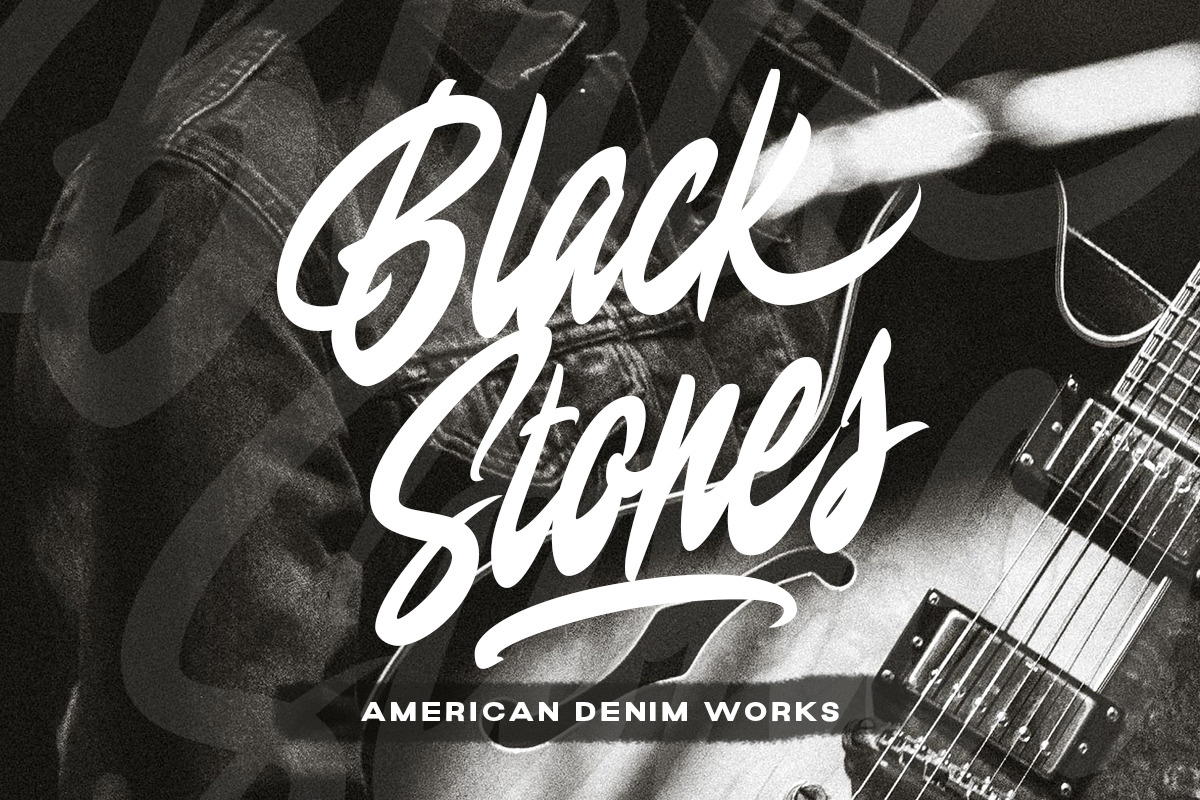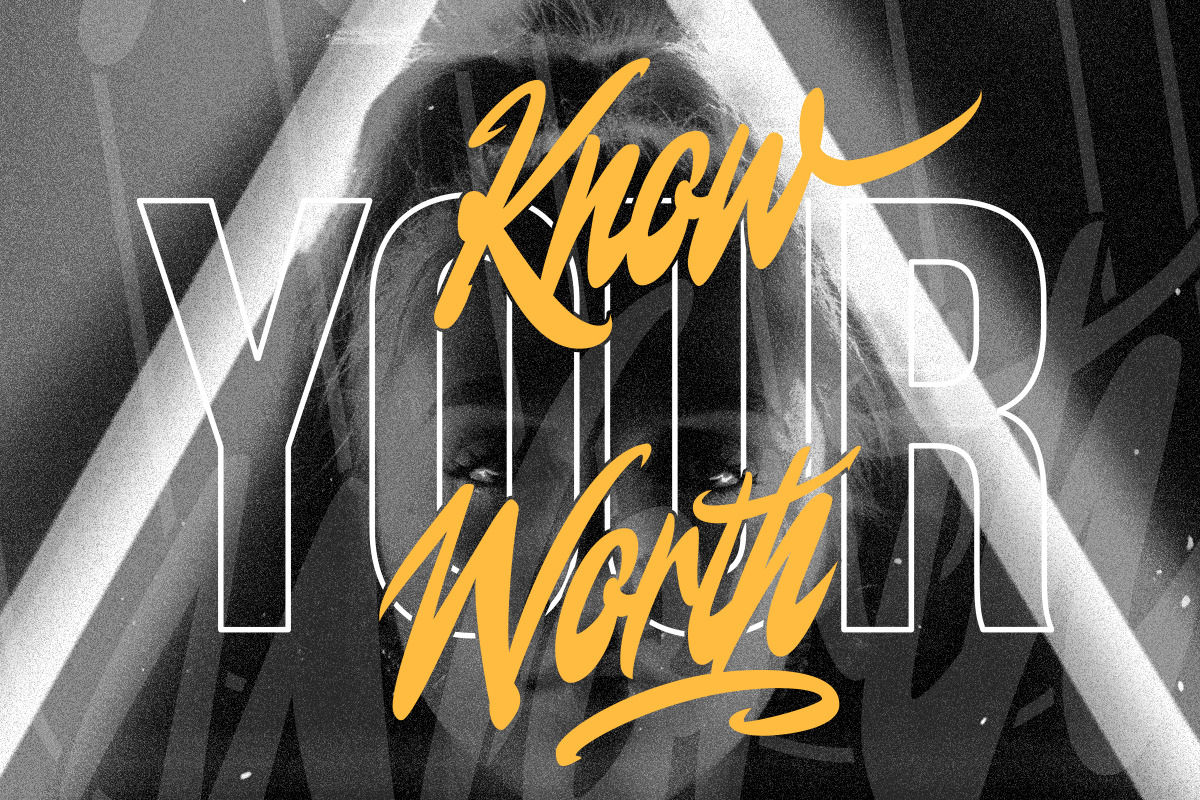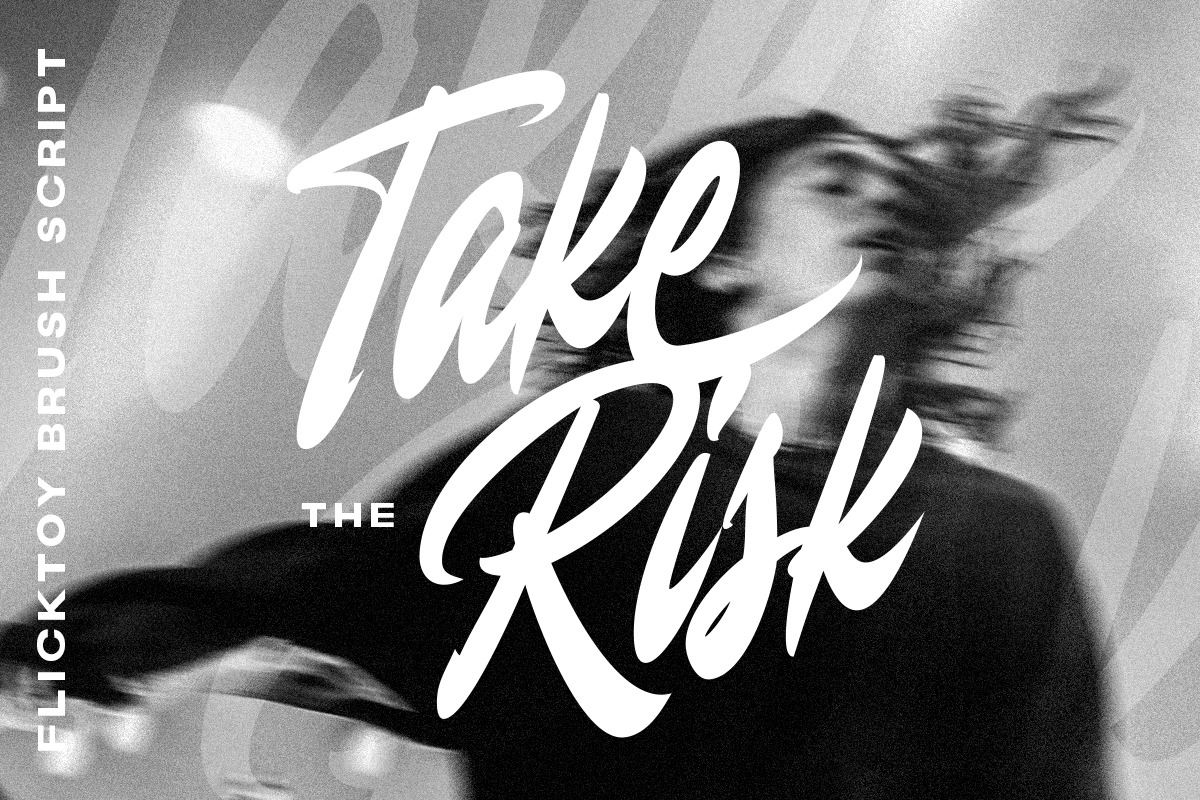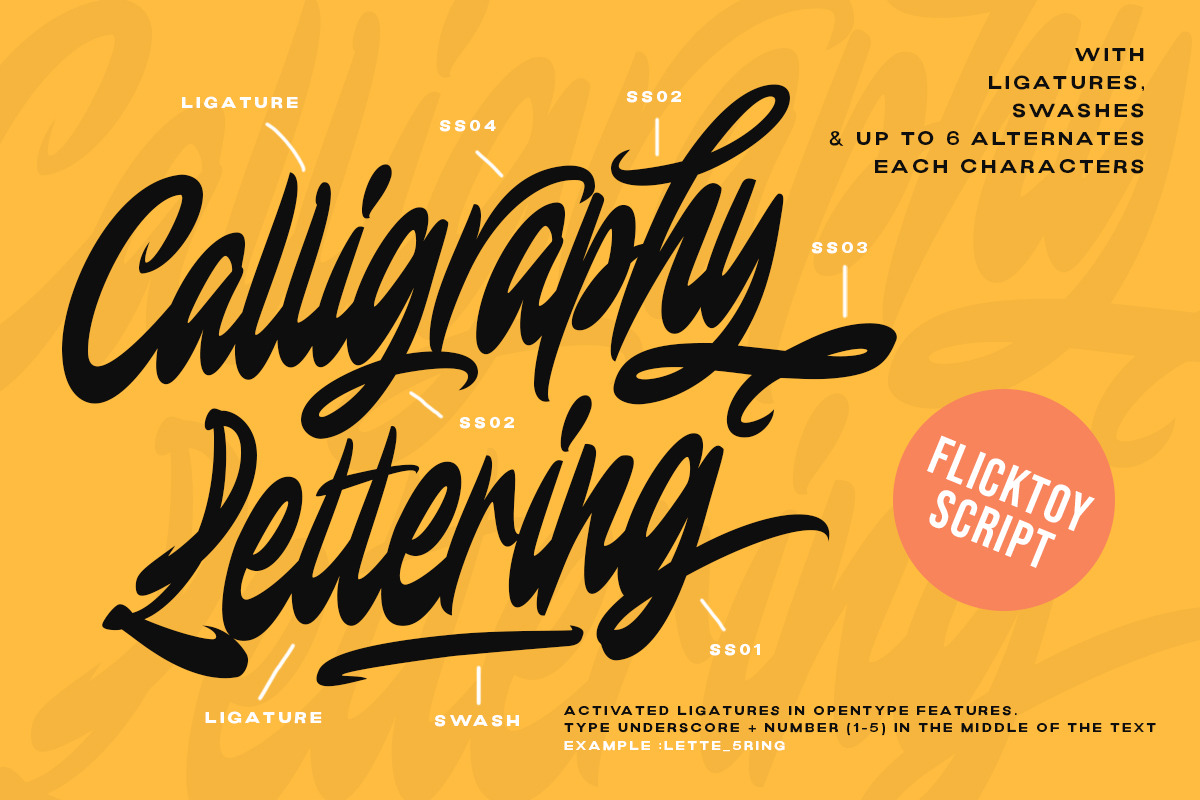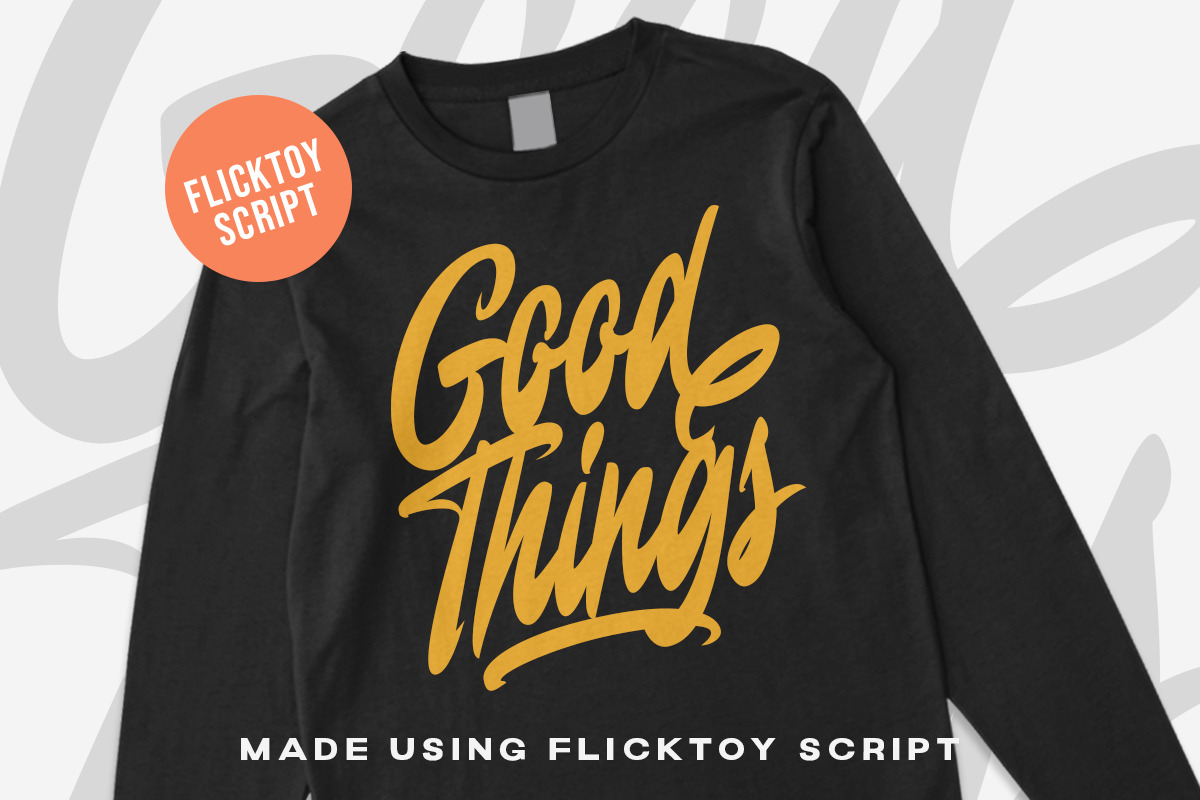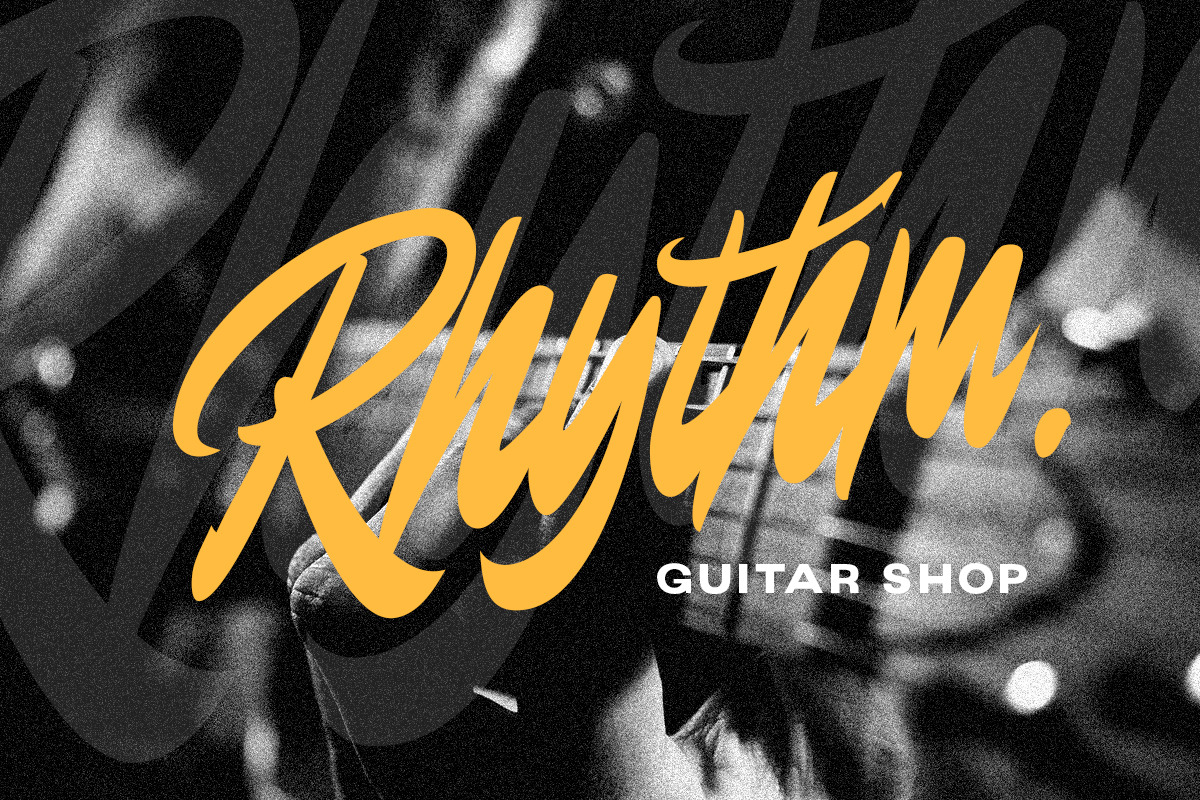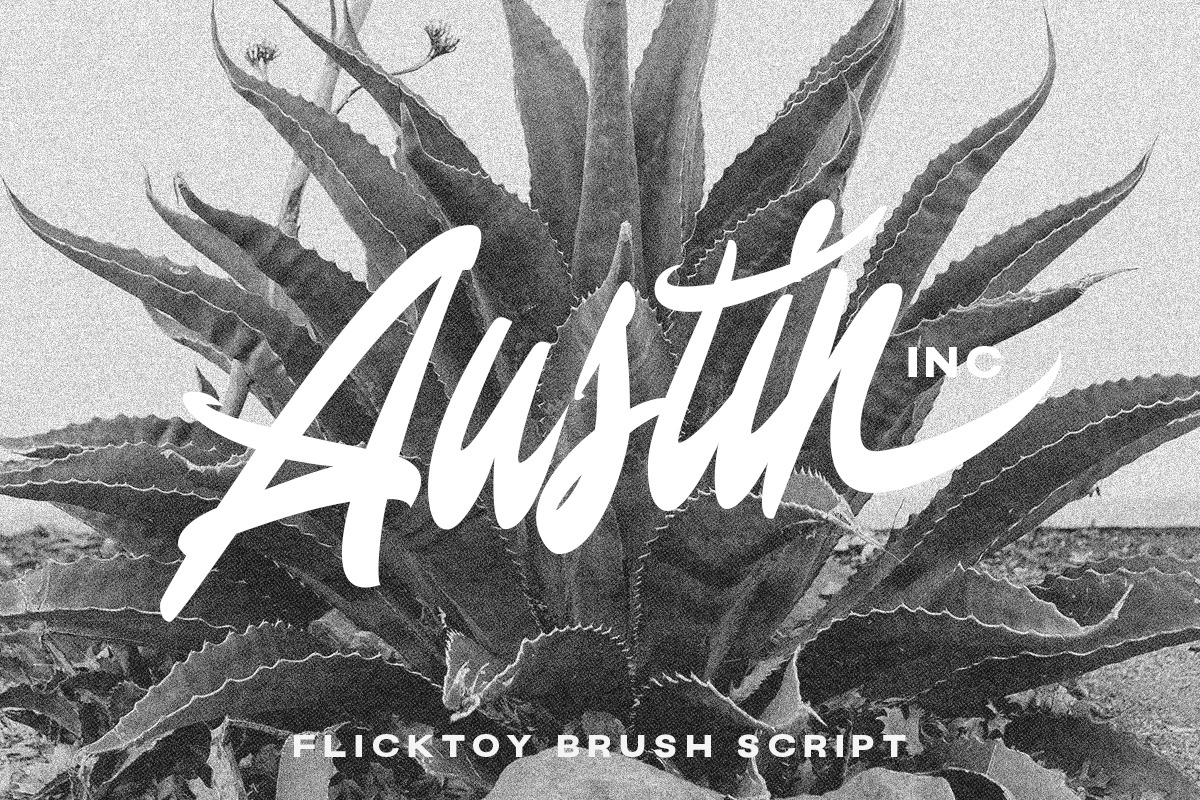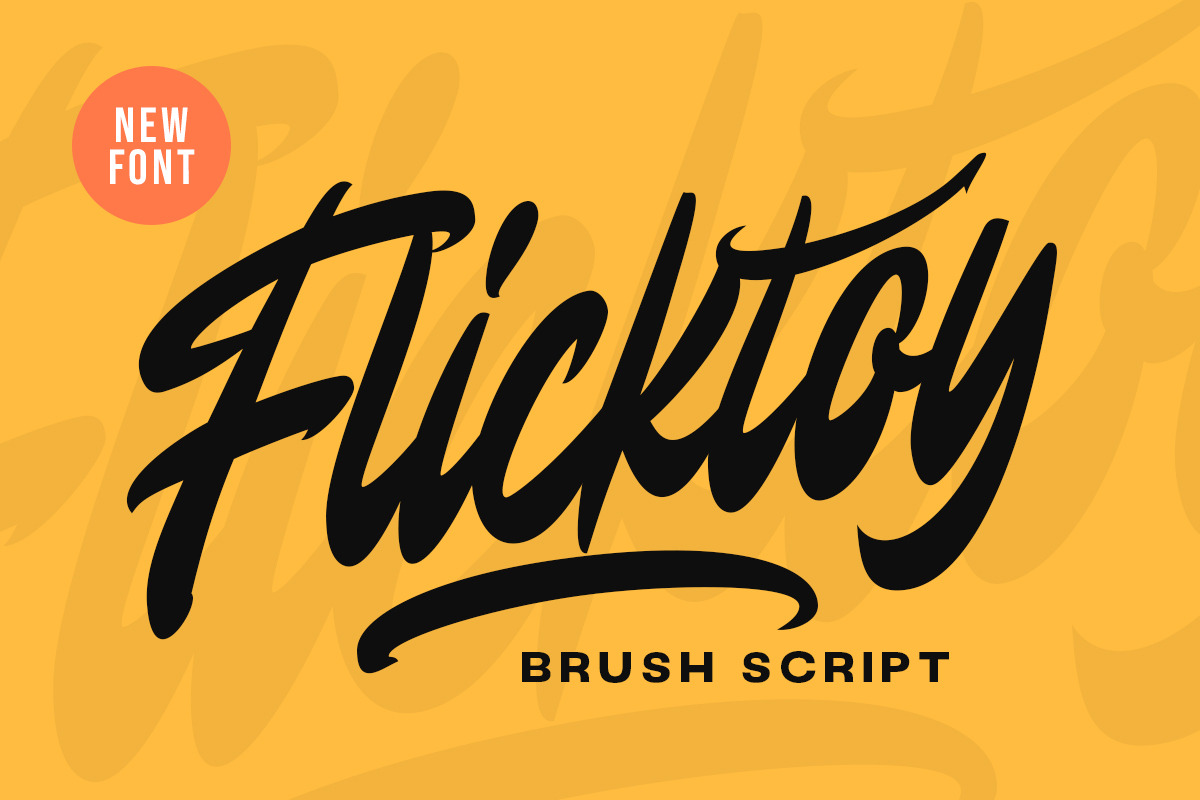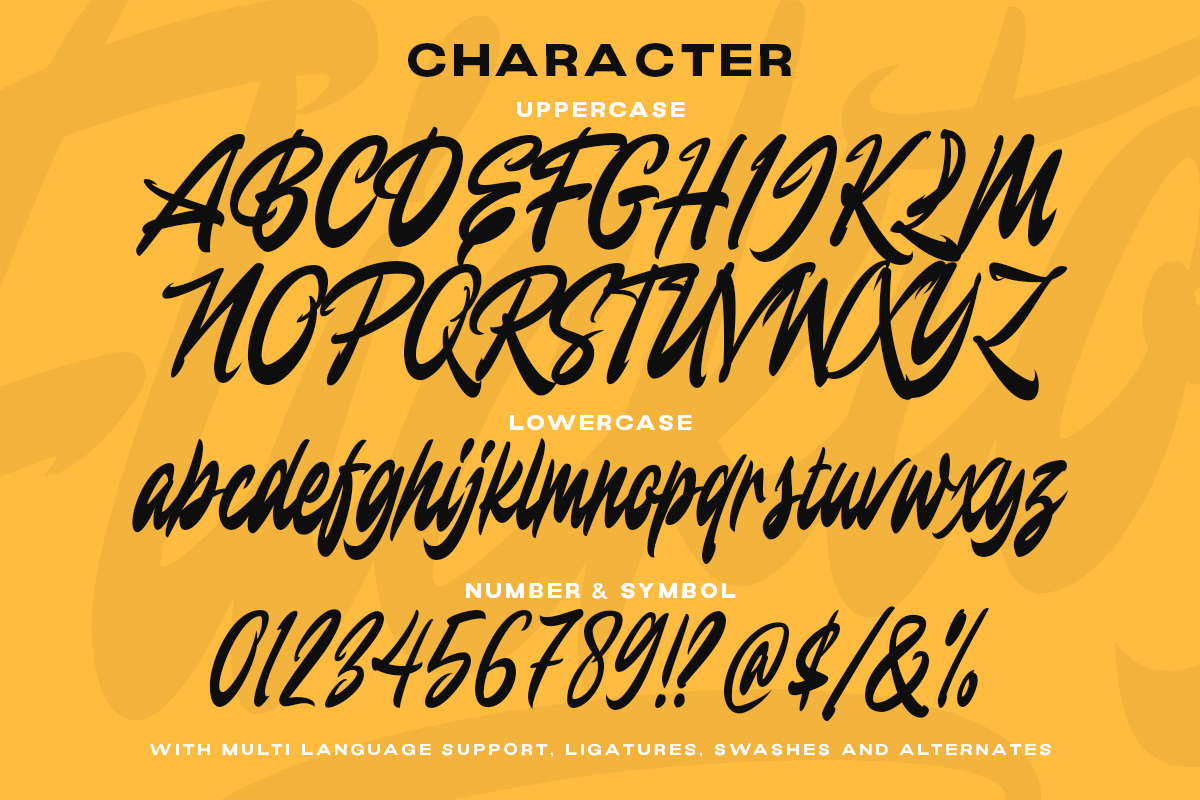
Flicktoy - Brush Script Font
Get trendy with Flicktoy, a brush script font that embodies the essence of modernity. With its stylish strokes and contemporary appeal, this font is perfect for designs seeking a fresh and urban edge.